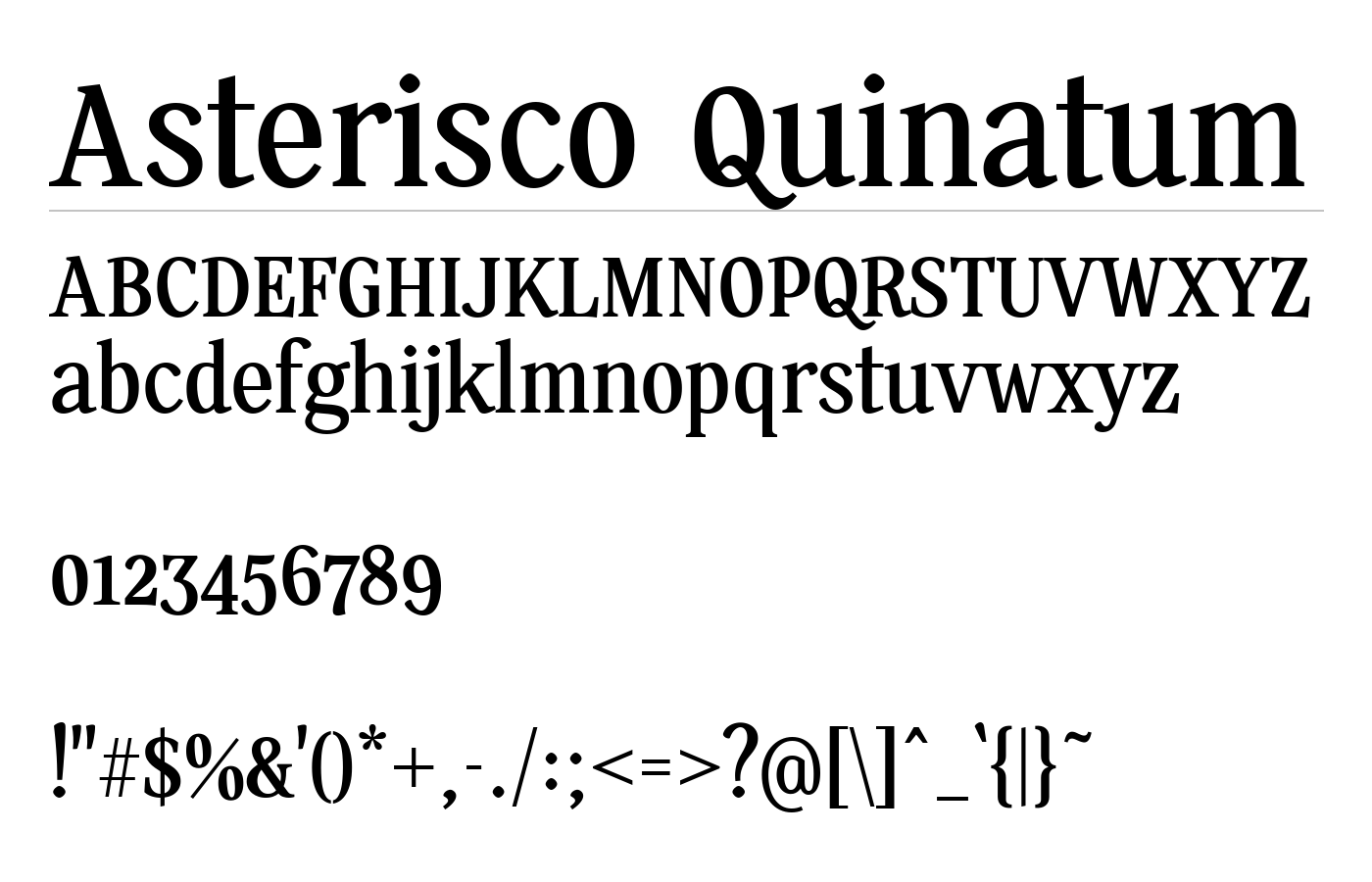
Asterisco Quinatum is a classic serif font that combines traditional elegance with a modern touch, featuring moderate contrast and well-defined, bracketed serifs. Its balanced proportions and readable letterforms make it ideal for both body text and headlines, bringing a refined and professional feel to editorial, branding, and print design projects. This font works beautifully in contexts that require a timeless, trustworthy, and sophisticated appearance.
Asterisco Quinatum Font
About Asterisco Quinatum Font
| Designer | Levi Szekeres |